What Font Does Strava Use in 2026?
What font does Strava use in 2026? Strava now relies on Inter for its UI and Boathouse, a custom branding typeface by Grilli Type. Learn the evolution of Strava typography and explore modern font alternatives for your own design projects.
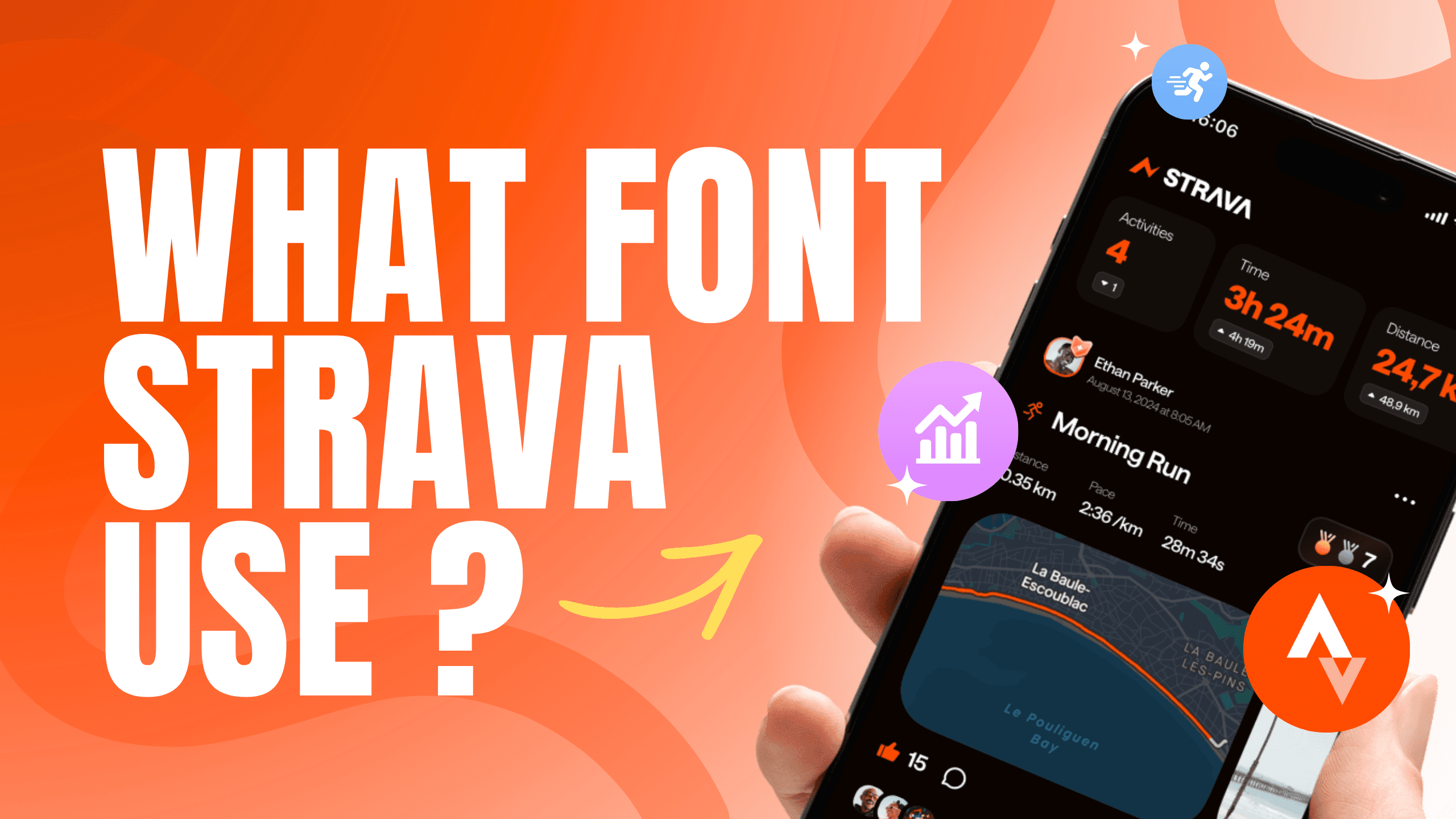
As one of the world's largest sports platforms, Strava has grown into more than just an activity tracking app. The brand has expanded into a community, social, and active lifestyle space. Strava pays close attention to its visual identity, from its signature orange color to its modern, bold, and easy to read typography.
As we enter 2026, many users, designers, brand enthusiasts are wondering:
What font is Strava actually using 2026?
This question arises because Strava's UI continues to be updated, becoming more consistent and more professional-looking. As the platform continues to grow into a global community for sports enthusiasts, its visual identity, including its typography, has become a topic of ongoing discussion.
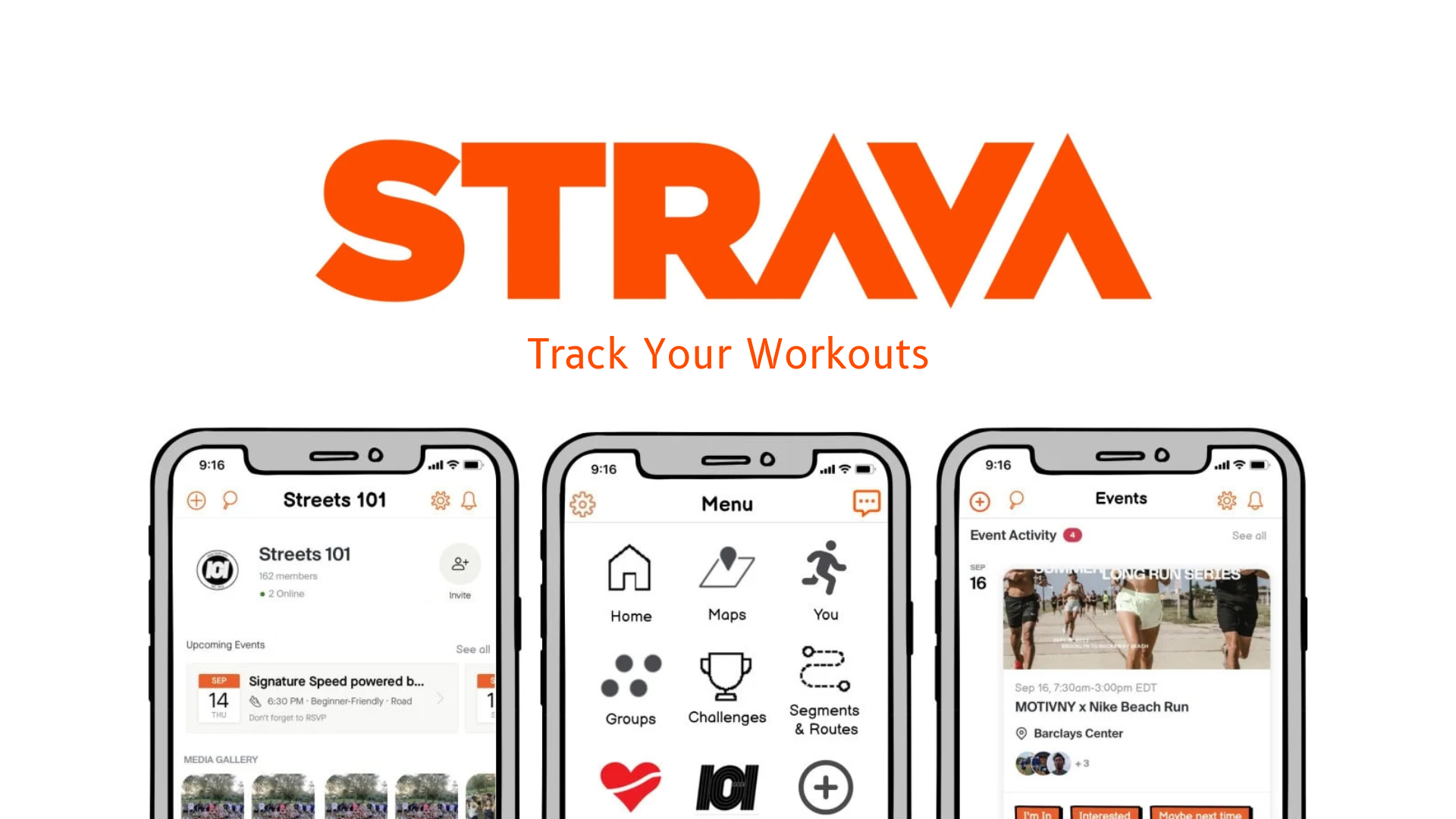
Evolution of Strava Typography Of the Years
2015-2019: Geometric Sans Era
In its early stages, Strava used a simple, minimalist, geometric sans serif design. The goal was to convey a modern, technological, and clean feel, although the design wasn't yet fully optimized for complex statistical data.
2020-2023: Transition Towards a Consistent UI
As the need for clear data displays grew, Strava began prioritizing readability. The Inter font was gradually adopted for app elements like pace, distance, elevation, and other small text. The Inter font proved more stable and easier to read, becoming the foundation for a more consistent Strava UI.
The introduction of Inter across Strava UI aligns perfectly with the company's long-standing design philosophy of presenting performance data with maximum clarity and without visual clutter. One user noted, "Inter feels like a natural fit for Strava because it's clear, easy to read, and reliable when checking your stats mid run."
2024-2025: Refinement & Unification
During this period, Strava's appearance matured. The Inter font was used throughout the app interface to ensure consistency and ease of reading the dense data. At the same time, Strava began updating its brand identity by introducing Boathouse, a custom font created in collaboration with Grilli Type.
Boathouse replaced Maison Neue as its branding font, presenting a friendlier, more modern, and rounded feel, in keeping with current app design trends. Boathouse is used for branding, visual campaigns, headlines, and communication materials, while the app UI remains in Inter, as it is more optimal for displaying sports data.
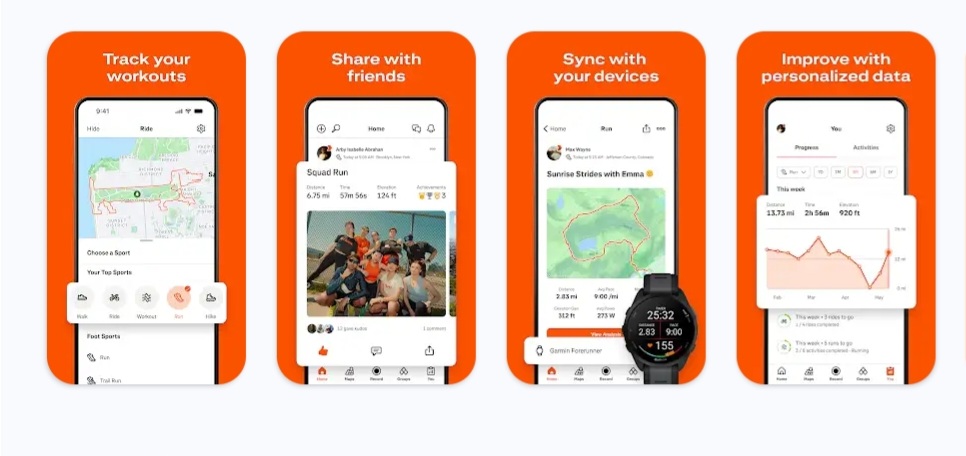
1. Metara-Modern Geometric Font
Metara is a modern geometric font with a minimalist, elegant, and bold look. Suitable for magazines, social media, branding, and modern themed logos, perfect for those seeking clean typography with a strong character.
2. Nautic-Modern Corporate Font
Nautic is a modern corporate font with clean lines and geometric precision. It's suitable for professional branding, such as tech startups, financial services, or consultancies. It's ideal for logos, brand identities, websites, and business materials that require a clean and modern look.
3. Attack-Corporate Logo Font
Attack is a modern sans serif font for logos and branding with a minimalist style and unique shapes. It features ligatures for easy creation of various shapes. It's suitable for branding, posters, social media, product packaging, and designs that require a clean and highly readable look.
4. Motive-Unique Logo Branding Font Family
Motive is a modern font family with a wide range of weights, ideal for strong visual identities in both digital and print media. With balanced proportions and a distinctive character, Motive is suitable for logos, websites, editorials, and creative branding that want a professional and bold look.
5. World-Modern Logo Font
World is a modern logo font that conveys a clean, elegant, and professional impression. It's perfect for fashion, technology, and lifestyle brands. Its simple and clean design makes it ideal for logos, headlines, and digital visuals that want a modern and sophisticated look.
6. Majer-Modern Logo Sans Serif
Majer is a modern sans serif font with an elegant and premium touch. It's suitable for logos, branding, magazines, and social media that require a luxurious, unique, and classy feel.
7. Nord-Modern Branding Logo Font
Nord is a modern branding font with balanced and clean letterforms. It gives a professional, elegant, and contemporary impression. Ideal for corporate identities, digital products, and modern designs that require a clean and sophisticated look.
Q: Are there alternative fonts similar to Inter and Boathouse?
A: Yes. For alternatives fonts like Metara, Nautic, Attack, Motive, World, Majer, Nord, Flagship, Aerospace or Agile from Sensatype Studio are great alternatives.
Ultimately, Strava dual font system Inter Font for UI functionality and Boathouse Font for brand expression balances precision with personality, making Strava not only efficient to use but also visually distinctive in a crowded digital landscape. This dual font approach balances usability and personality, making Strava both visually powerful and easy to use.